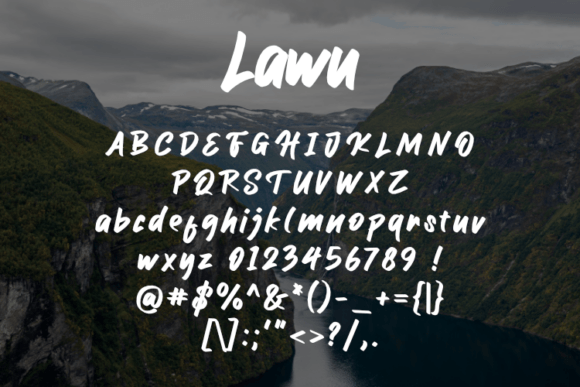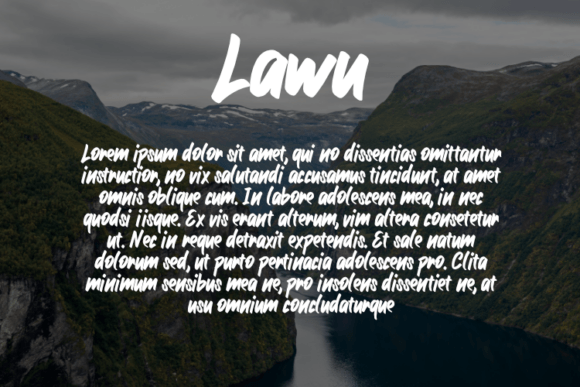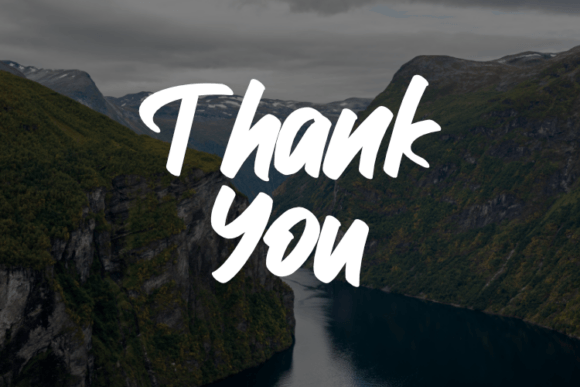
Introduction to Lawu Font
Do you remember the thrill of finding that perfect font to elevate your creative project? The moment when your design suddenly comes to life, and everything falls into place? For designers, this moment is a game-changer. It’s what makes all the hard work worth it. And that’s exactly what the Lawu Font is all about – bringing your ideas to life with its unique blend of style and versatility.
As a valuable design resource, Lawu Font offers a high-quality solution for designers looking to take their projects to the next level. Whether you’re working on apparel designs, product branding, or any other creative project, Lawu Font is the perfect companion. With its transparent background and seamless compatibility with all software platforms, you can focus on what matters most – your art.
Key Features of Lawu Font
- High-quality font design with a unique and creative style, perfect for various projects.
- Transparent background option allows for seamless integration with other design elements.
- Lawu Font is a versatile design tool suitable for a wide range of creative projects, from digital art to print materials.
- Designed to be easily scalable and customizable, making it an ideal choice for designers who value flexibility.
Honest Review: Lawu Font
I recently came across the Lawu Font, and I must say it’s a great addition to any designer’s toolkit. This high quality font is a valuable design resource that can elevate any creative project.
What works well with the Lawu Font is its clean and modern design. The font is versatile and can be used for a variety of purposes, from headings to body text. The transparent background also makes it easy to work with.
- ✨ Great for creating modern and sleek designs
- ✨ Versatile and can be used for a variety of purposes
Tips for Getting the Most Out of the Lawu Font
To get the most out of the Lawu Font, use it in conjunction with other design elements to create a cohesive look. Experiment with different font sizes, colors, and styles to add visual interest to your design. The Lawu Font is a high-quality design resource that is perfect for creative projects, and its transparent background makes it easy to use in a variety of applications.
The Lawu Font is a versatile design resource that can be used in a variety of applications, including presentations, reports, and creative projects. It’s perfect for designers, marketers, and anyone looking to add a touch of elegance to their design.